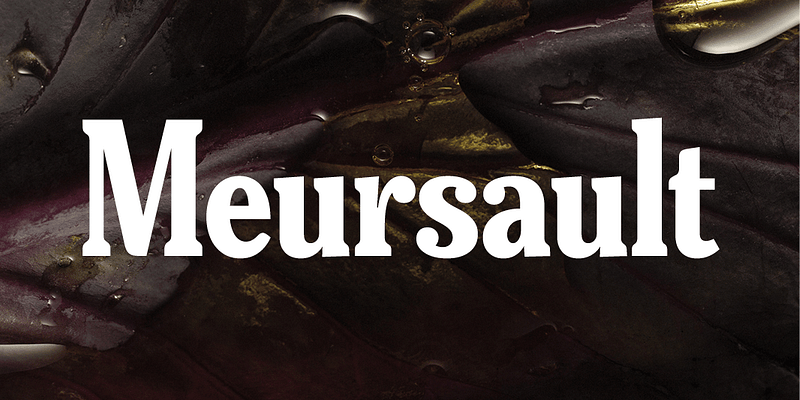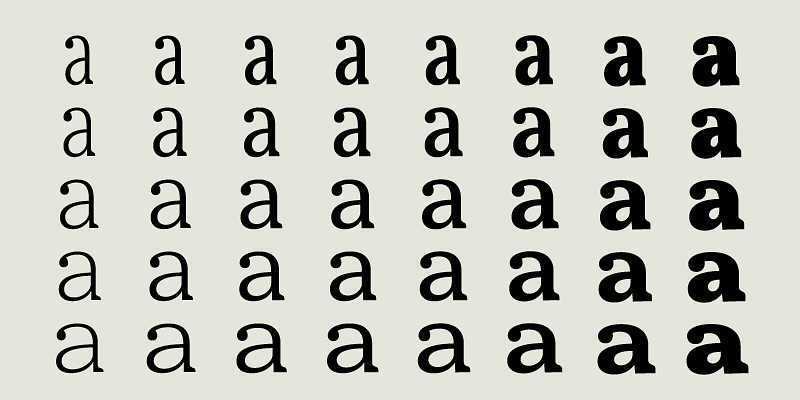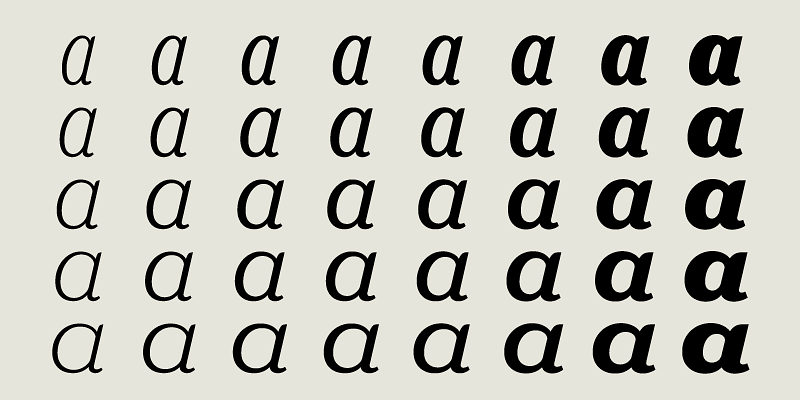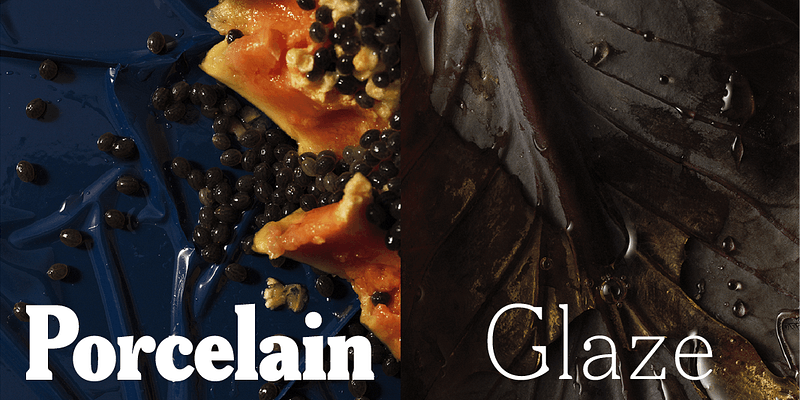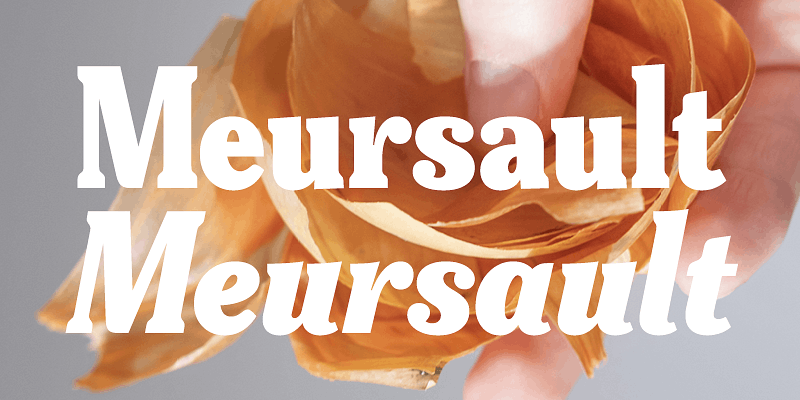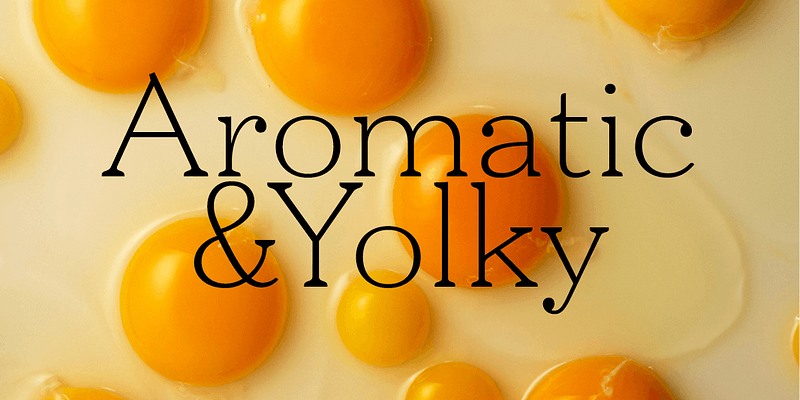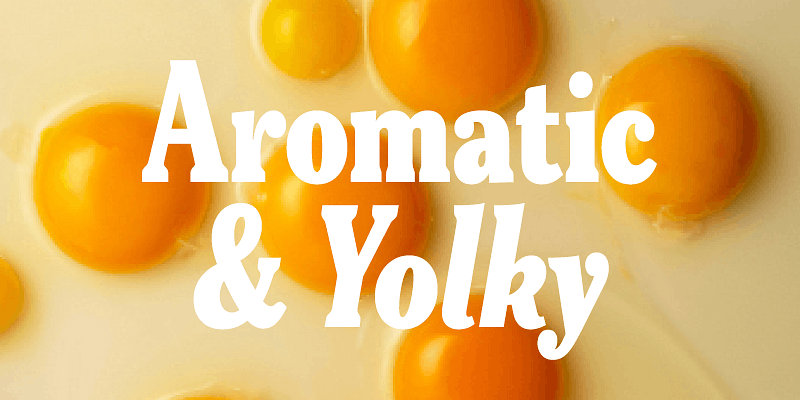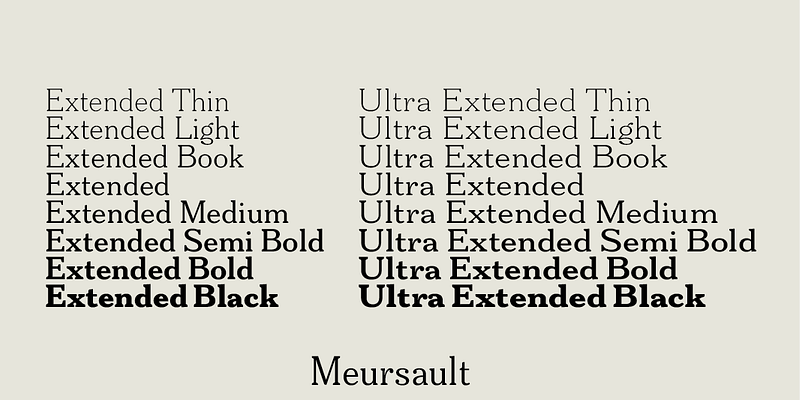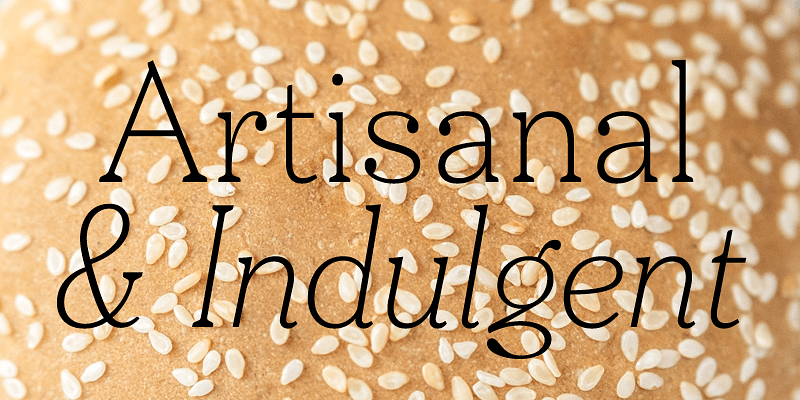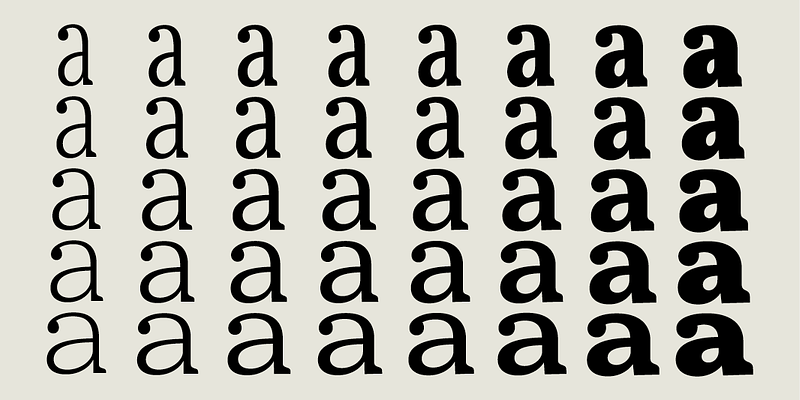
Meursault is a graceful headline typeface based on a popular 20th-century style, but with a few quirky twists. It’s a typeface that echoes a design used widely in the early 20th century, born from the burgeoning Arts and Crafts movement.
Meursault was originally designed for The Gourmand, and is intended as a display typeface for use in headlines and subheadings in magazines and newspapers.